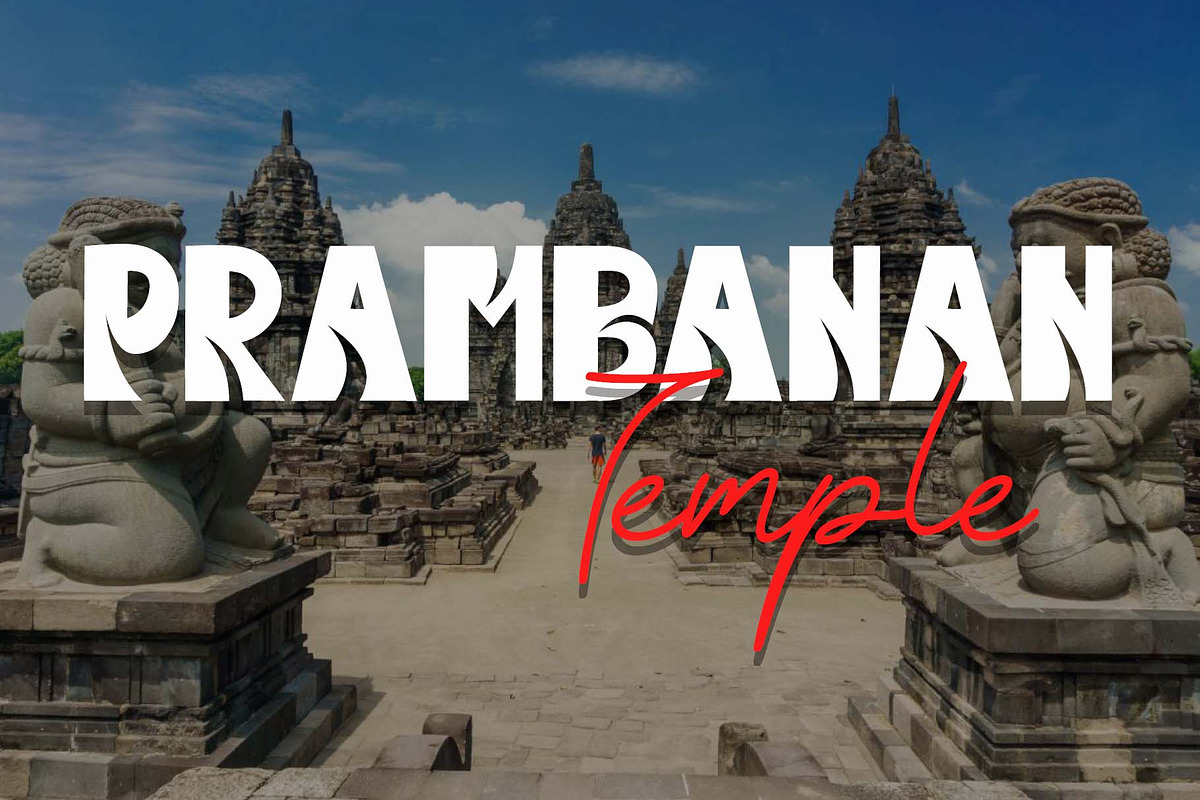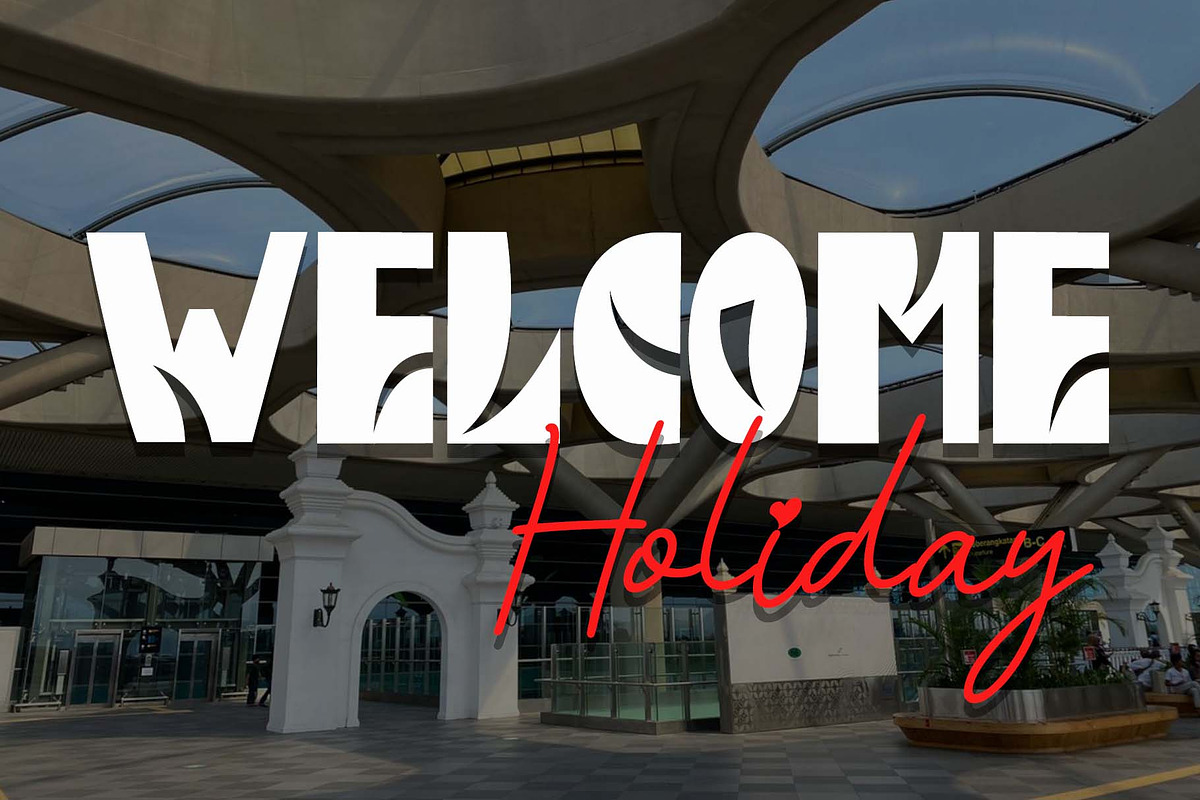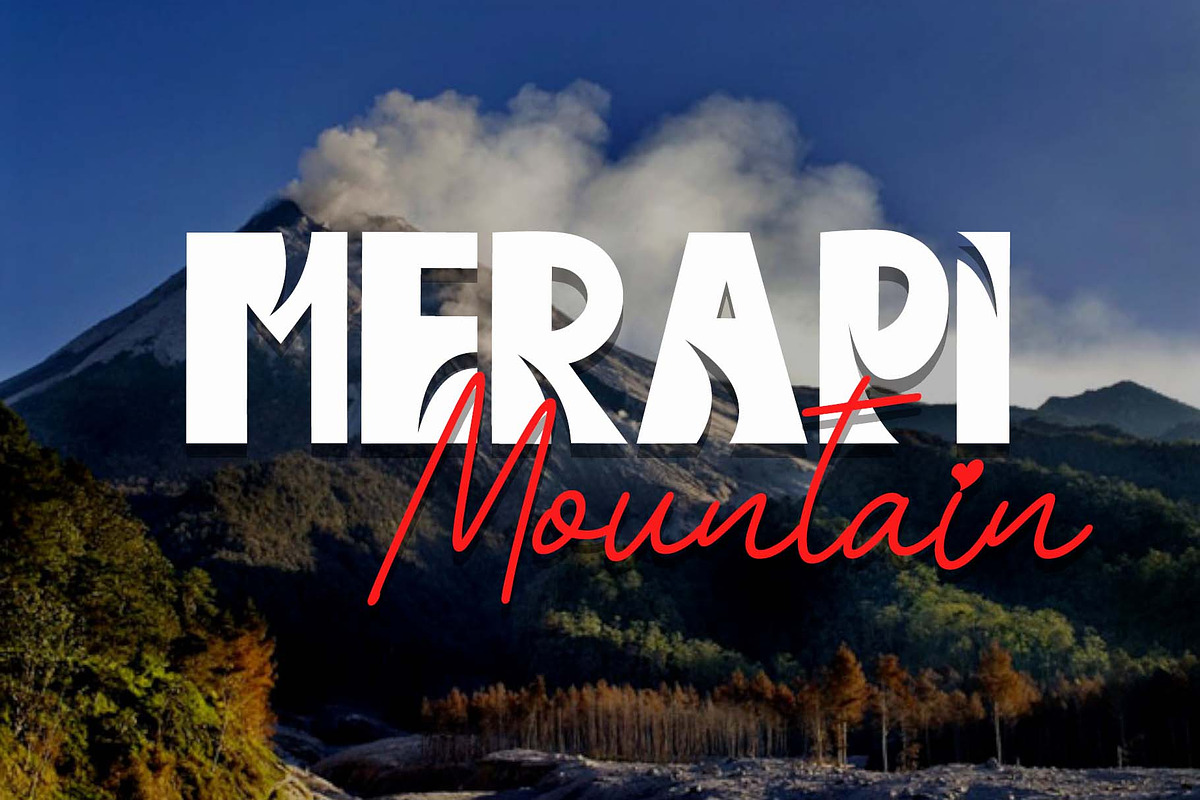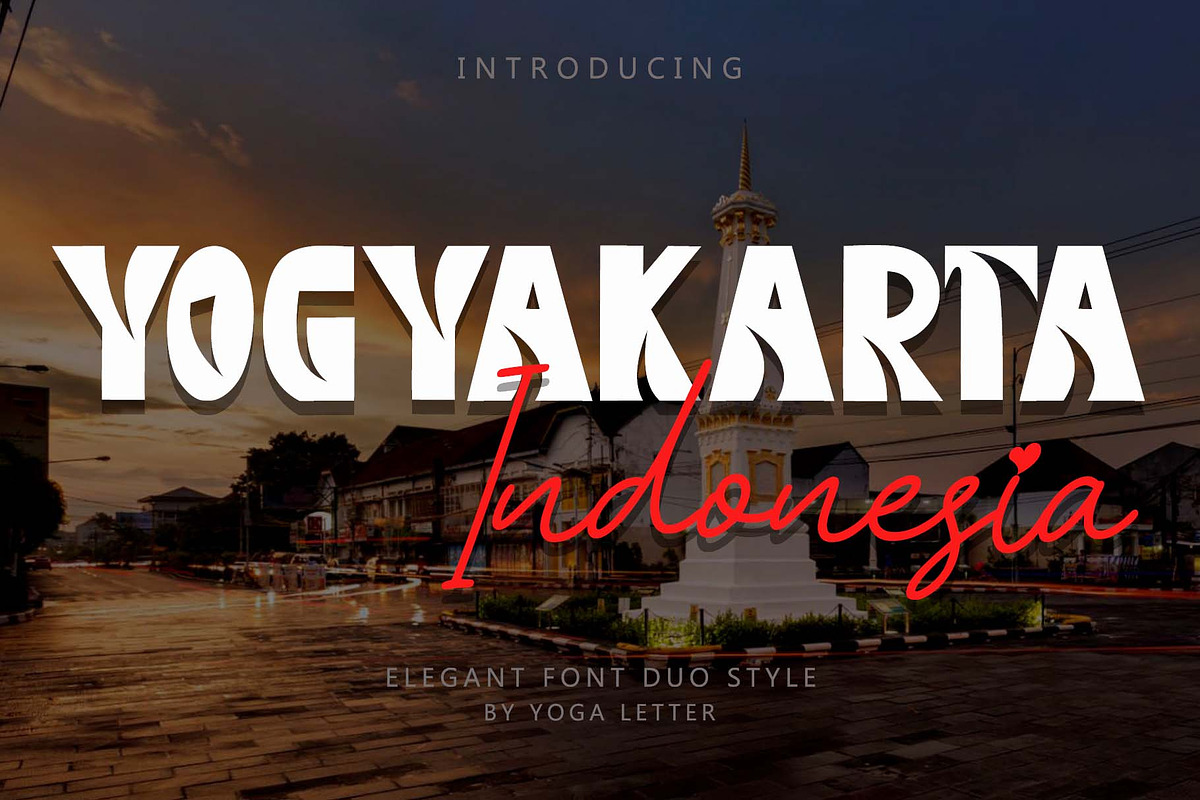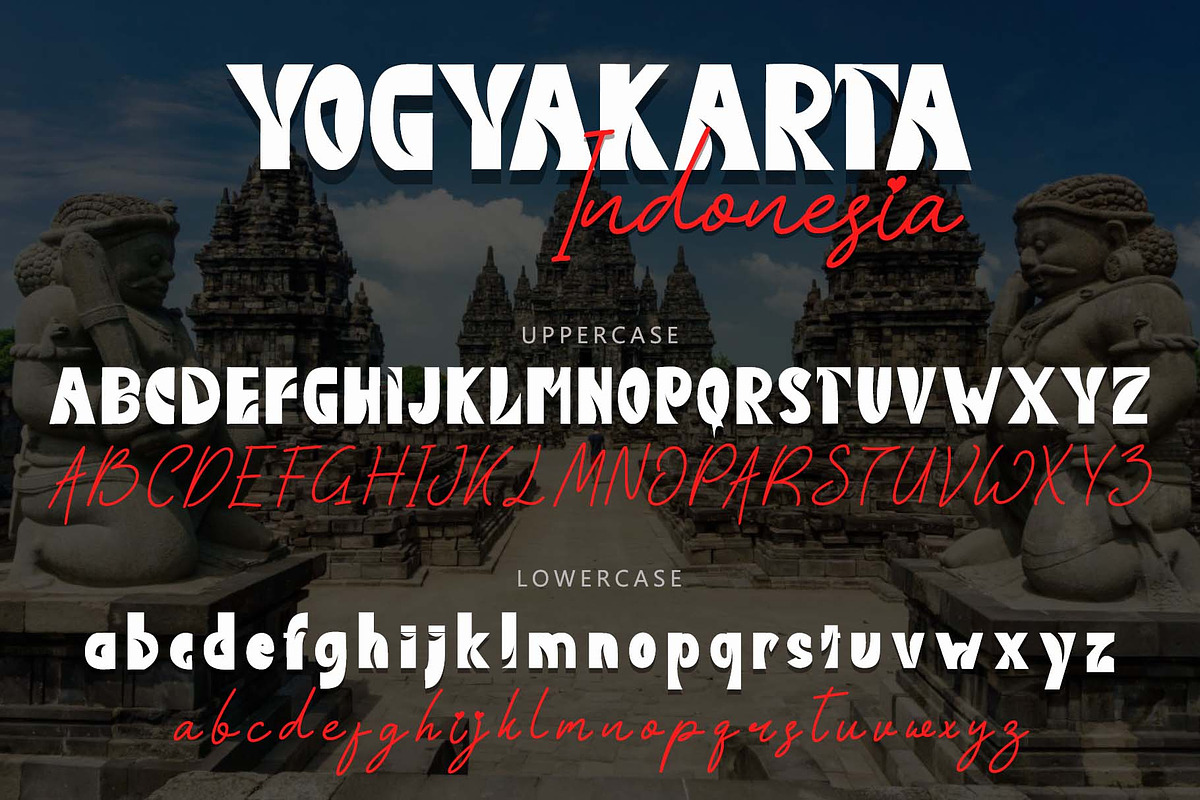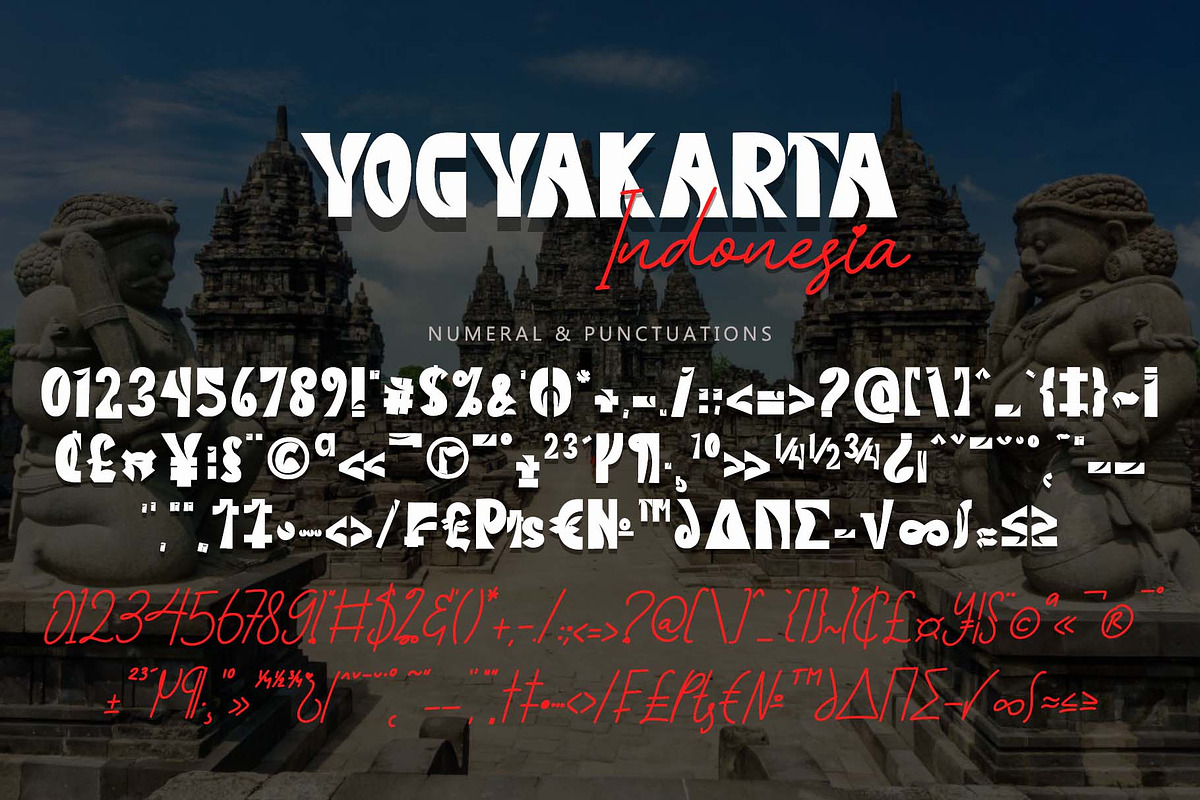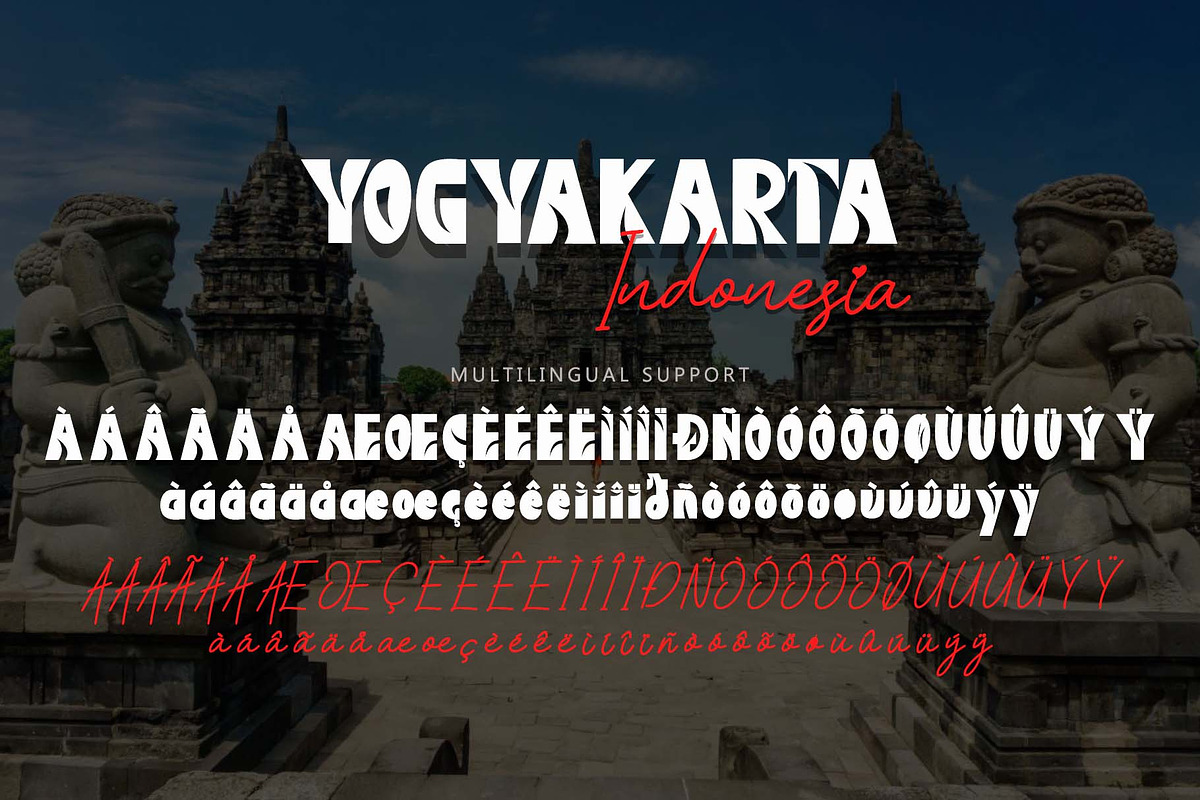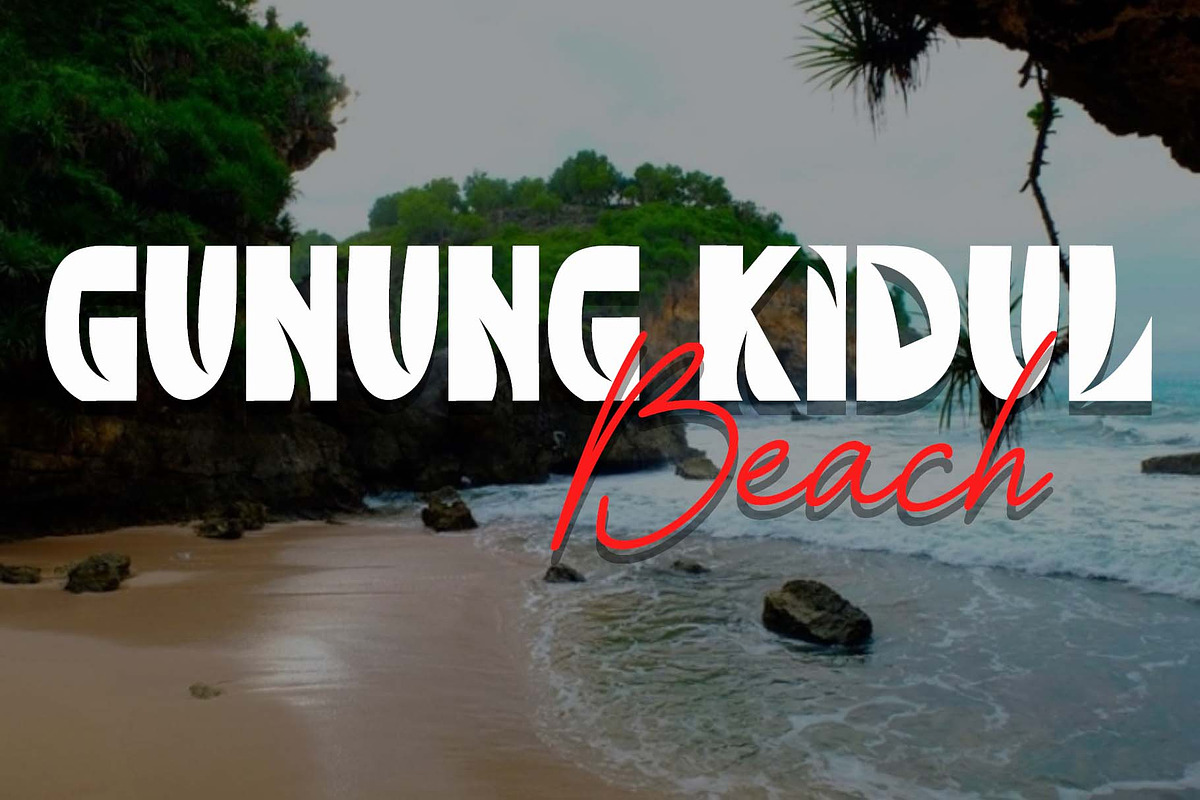
Yogyakarta Indonesia
"Yogyakarta Indonesia" is a duo font that combines blackletter font and monoline font. Equipped with capital letters, lowercase letters, numbers, punctuation, and multilingual support. Perfect for business branding, social media, stickers, posters, prints, banners, logos, svg, kdp, procreate, and more.